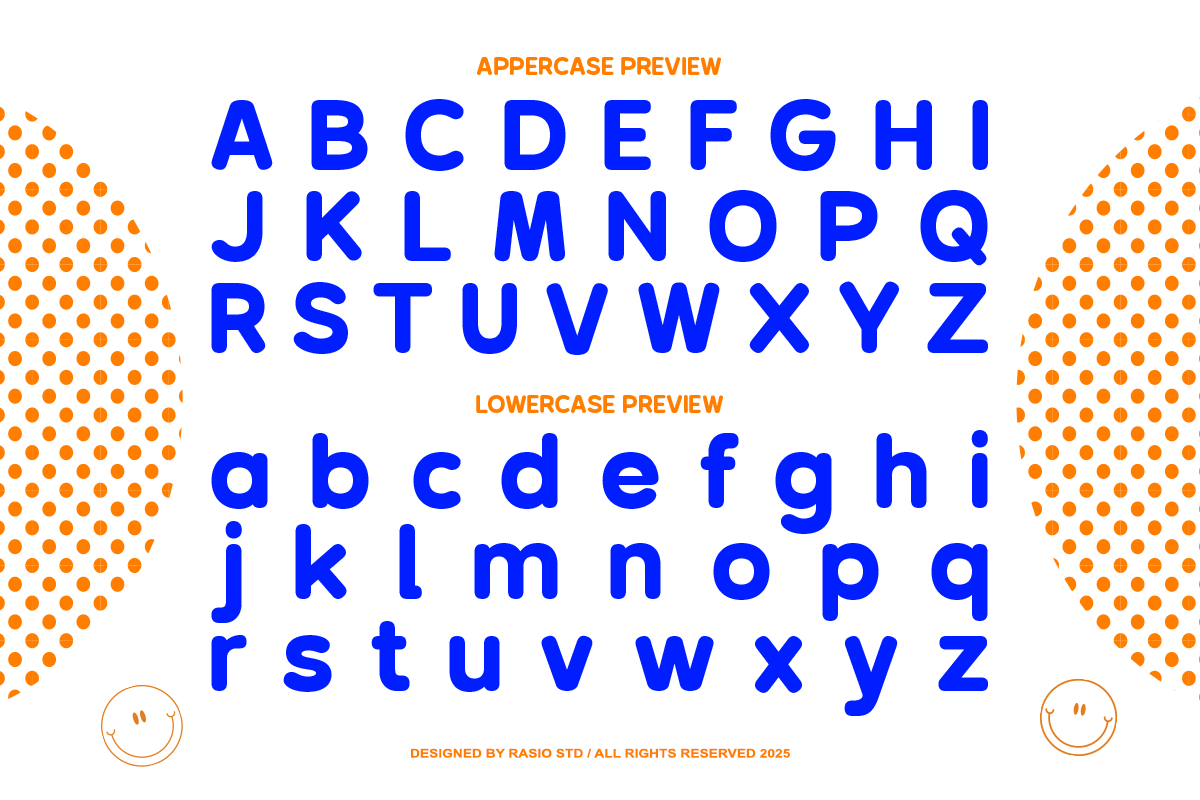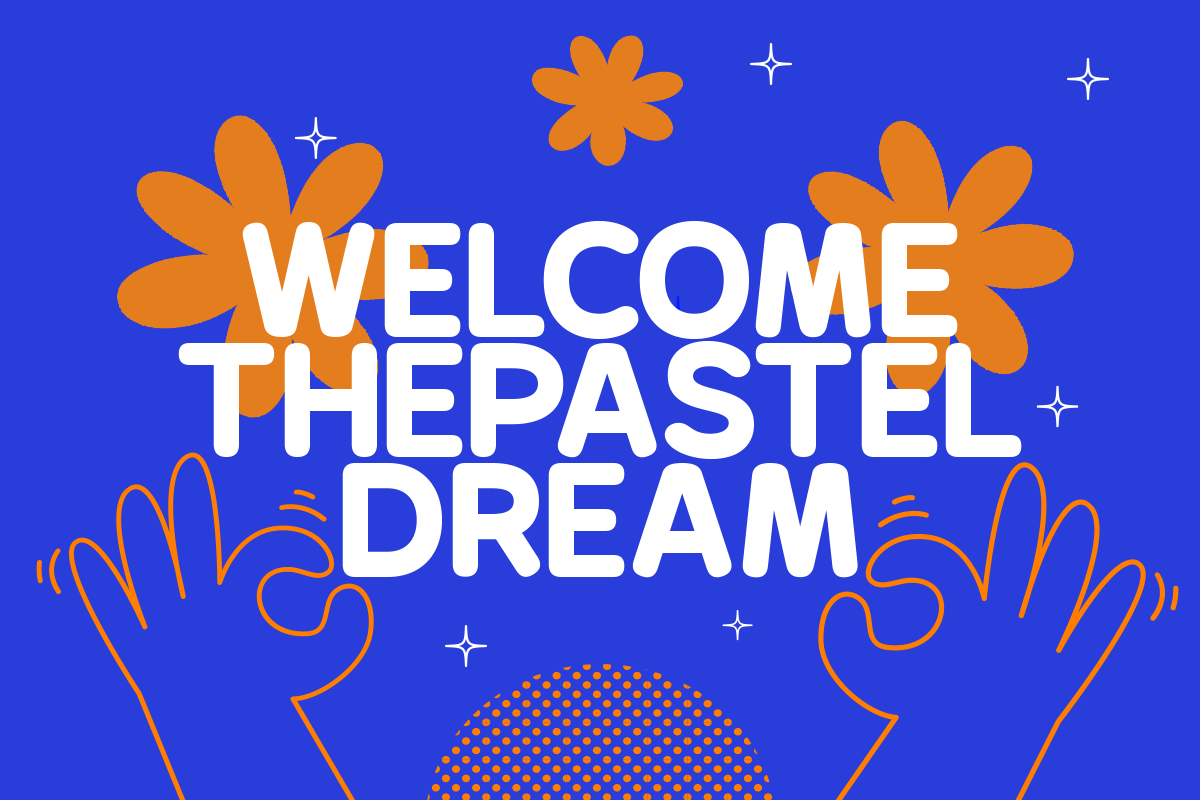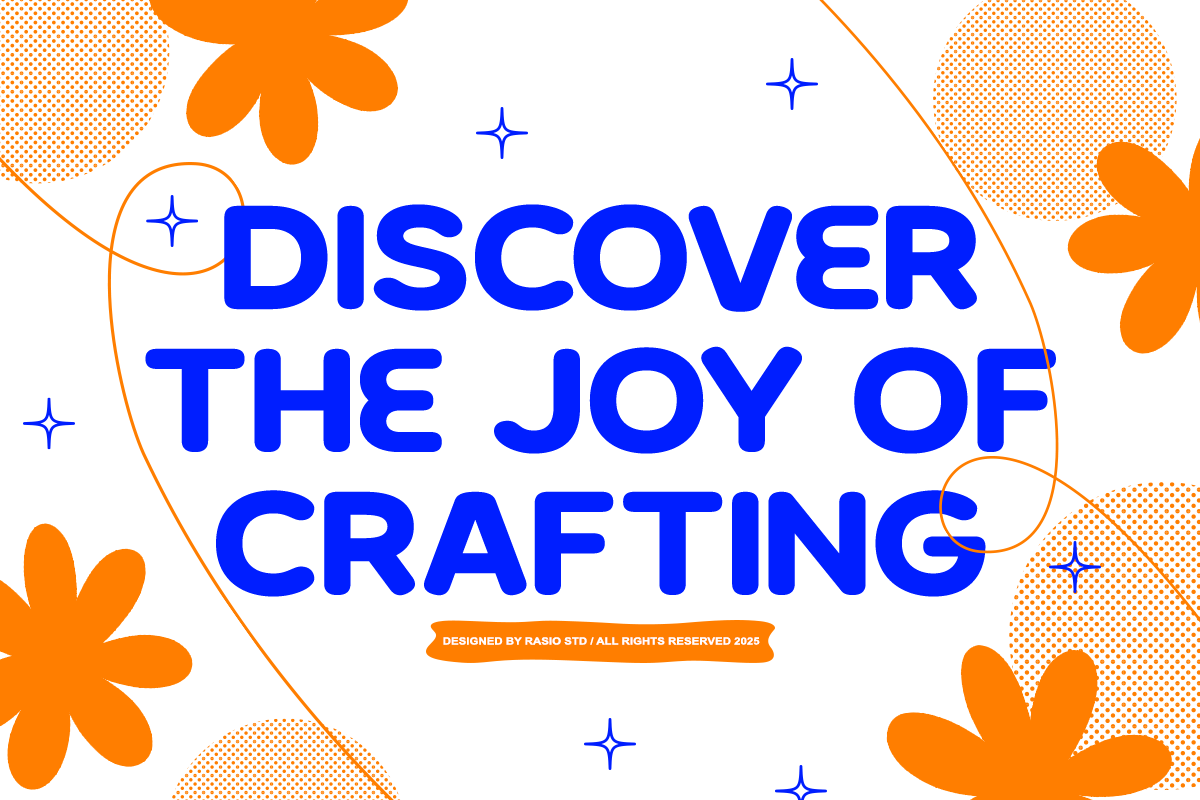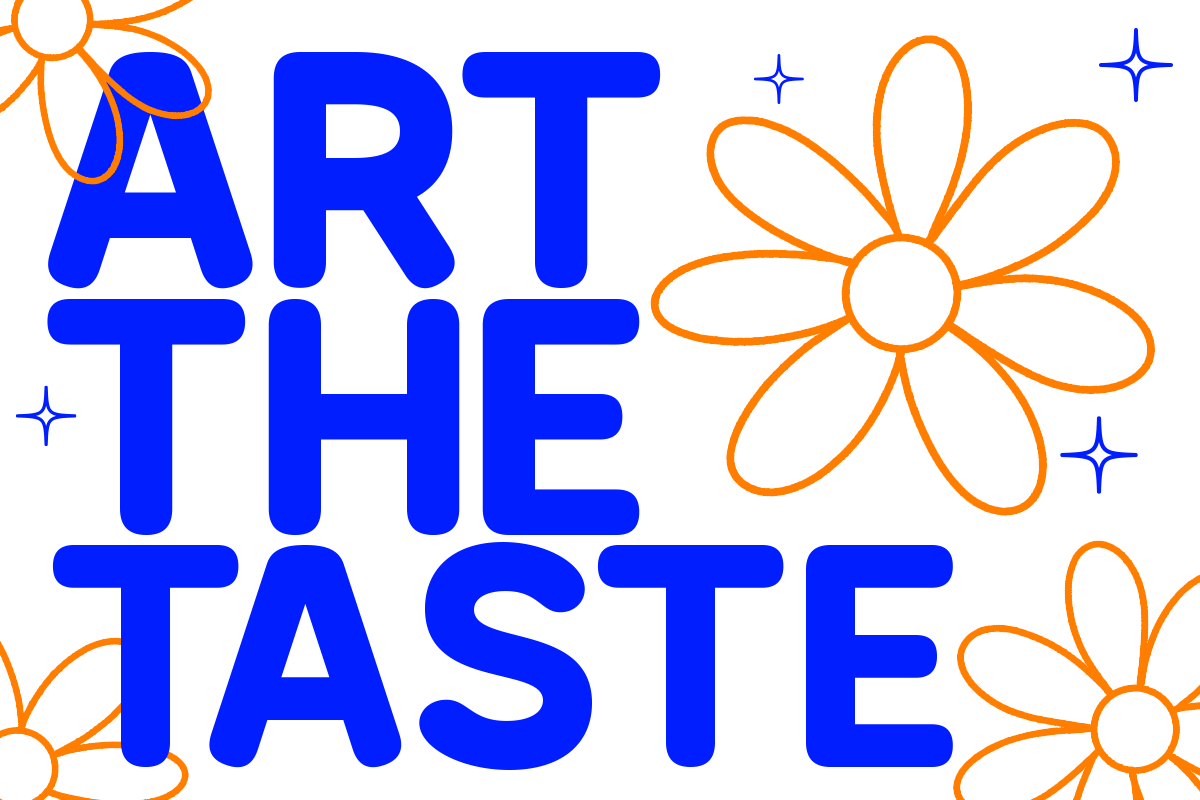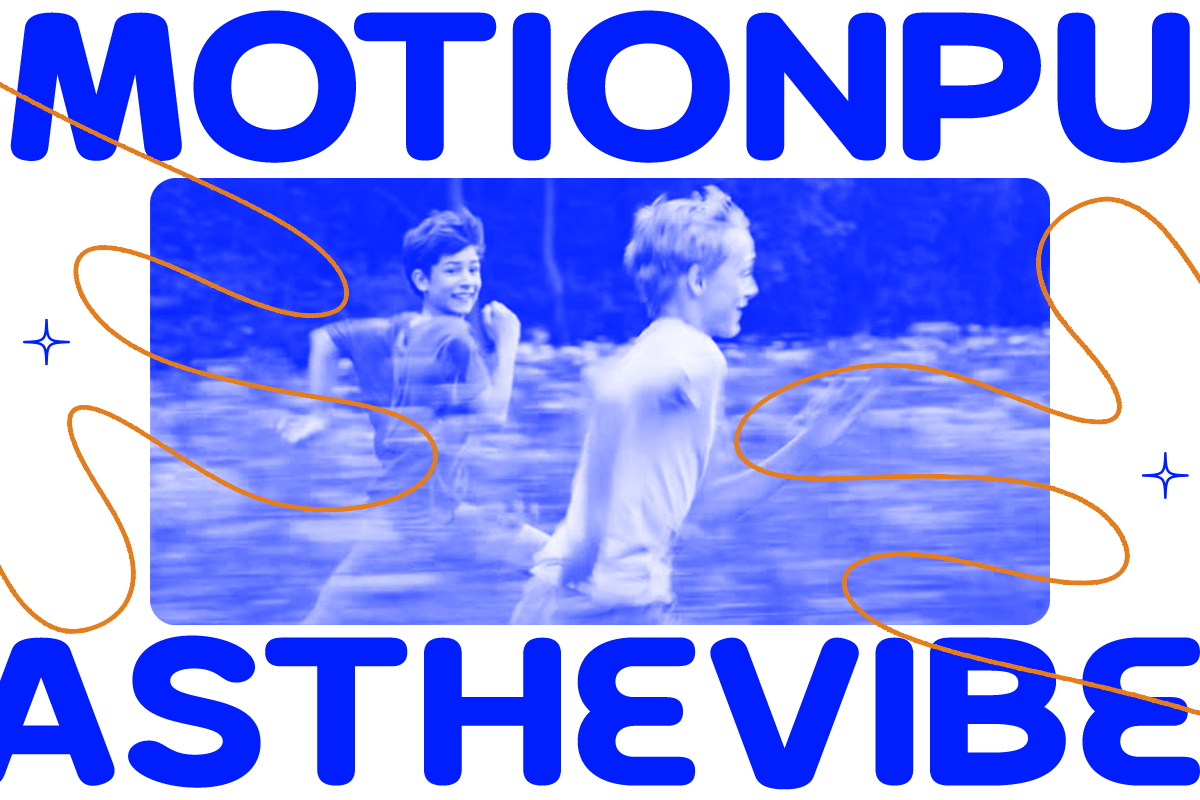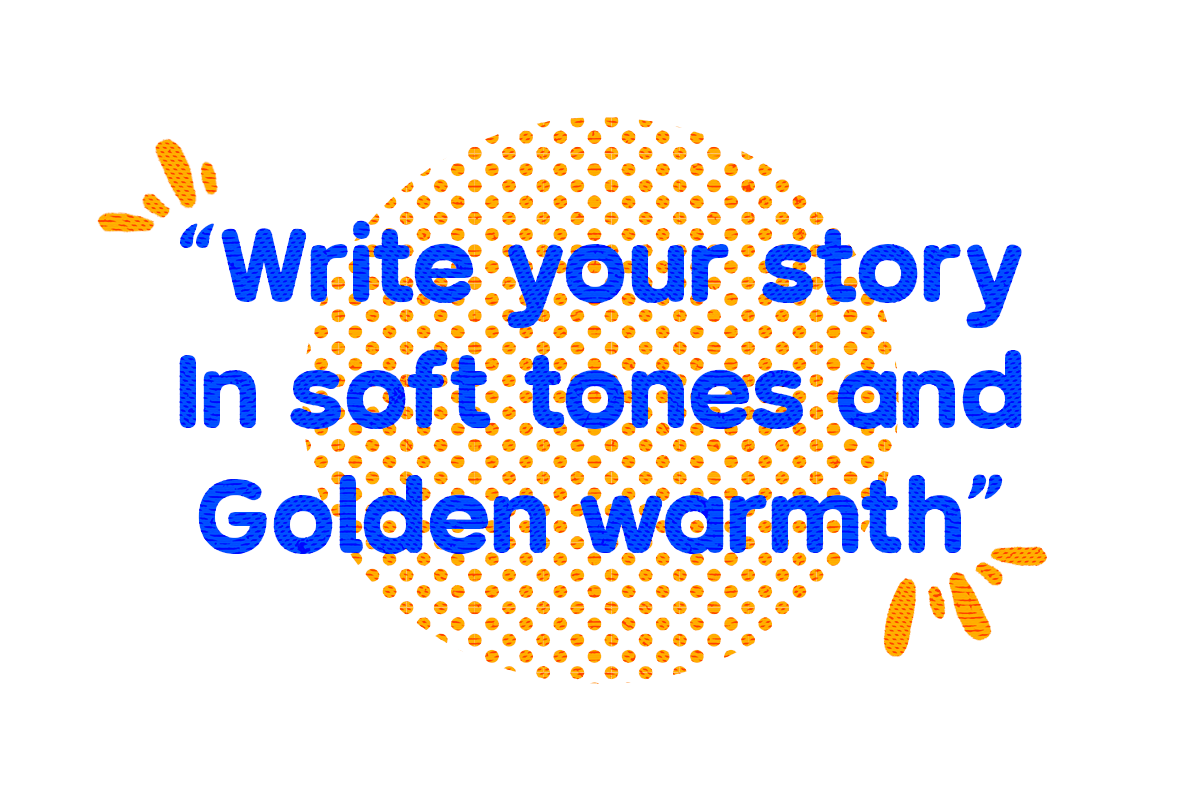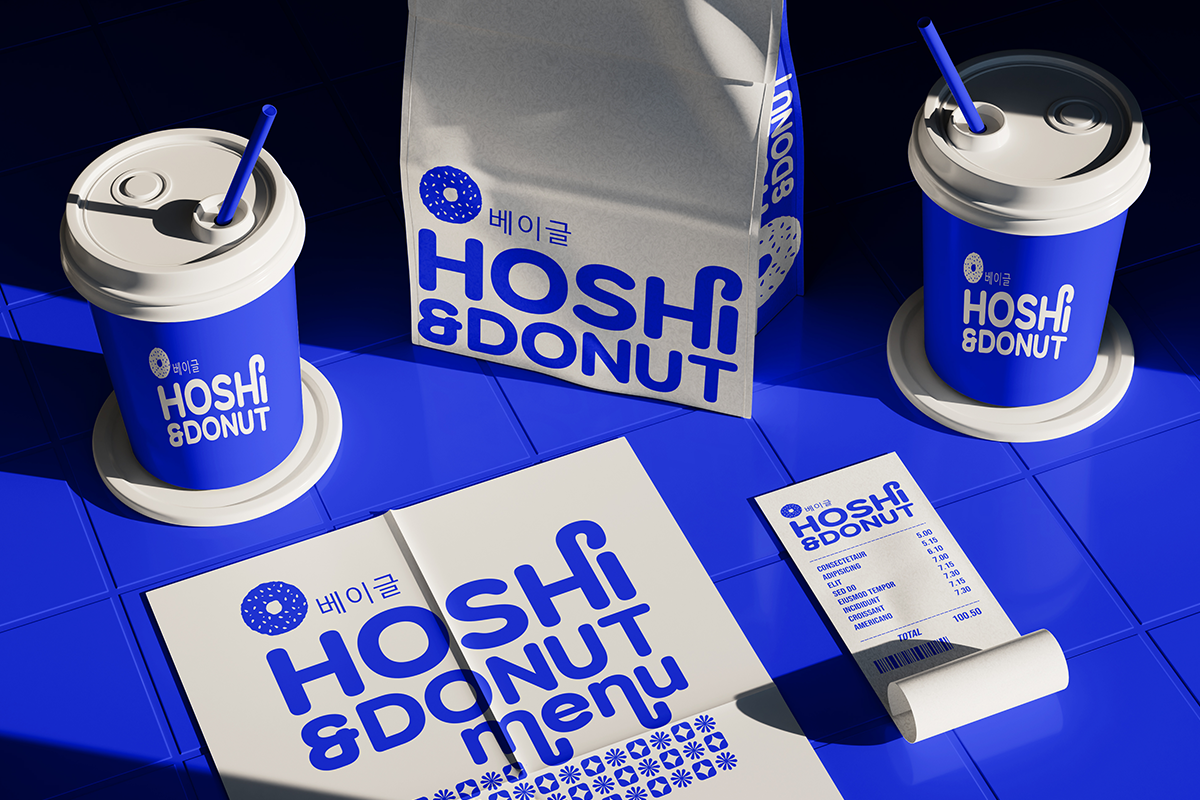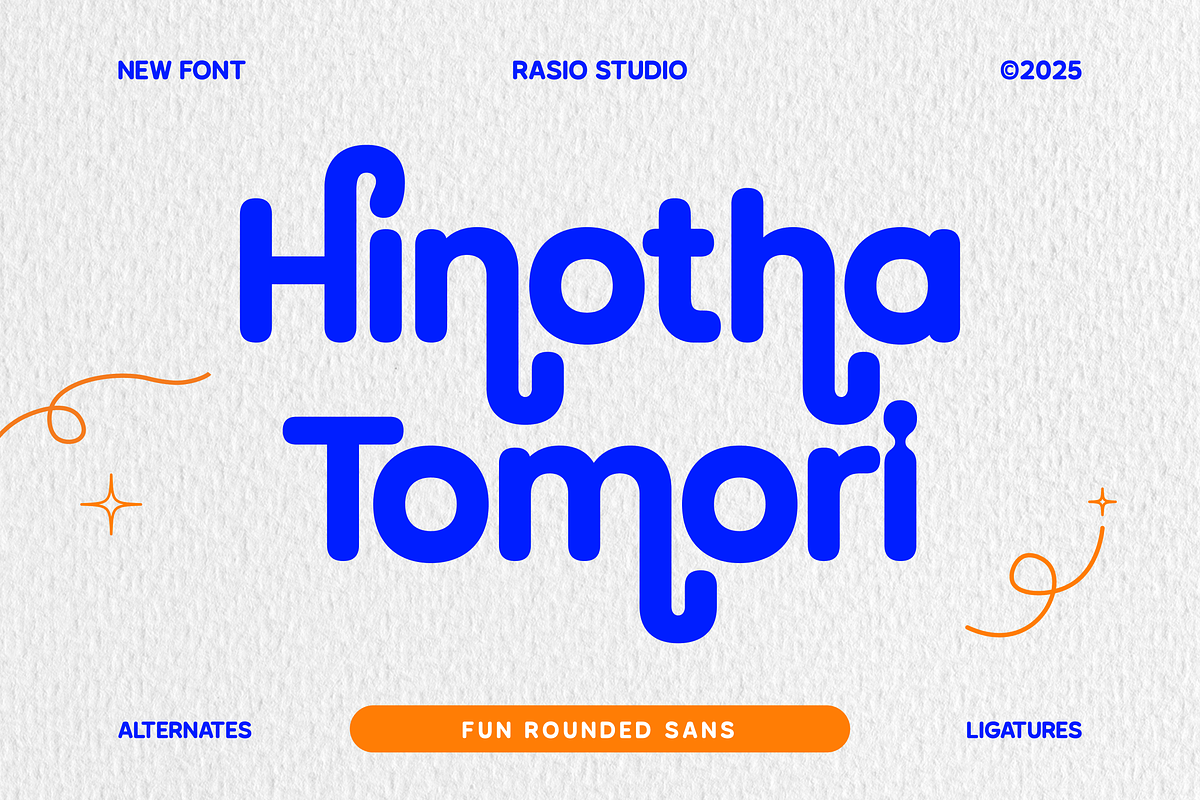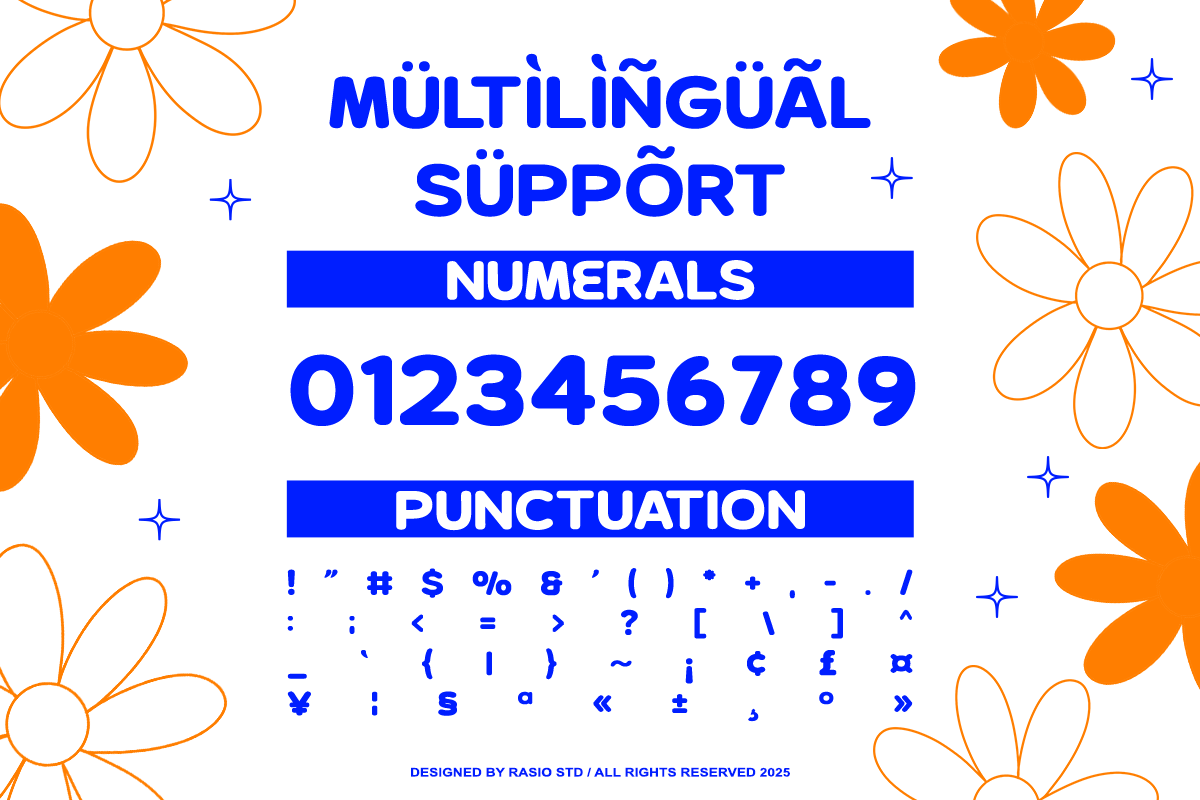
Hinotha Tomori Fun Rounded Sans Font
Hinotha Tomori is a fun rounded sans typeface with a playful and friendly character. Its soft curves, bold proportions, and quirky alternates make it perfect for cheerful branding, social media design, packaging, posters, and children’s products. The smooth rounded edges give it a modern yet approachable vibe, balancing readability and personality. Includes uppercase, lowercase, numbers, punctuation, alternates, ligatures, and multilingual support.
Relevance and Use Cases is perfect for kids’ branding, playful logos, food & snack packaging, social media quotes, lifestyle branding, cheerful posters, product labels, educational materials, and creative merchandise.
- Playful rounded sans serif with bold and soft geometric forms
- Chunky letterforms with smooth curves for a friendly visual tone
- Bouncy proportions and slightly irregular shapes for a lively character
- Clean and minimal stroke contrast for strong readability in display use
- Fun and approachable structure with modern retro influence
- Branding projects with a fun and friendly personality
- Logo designs that need a bold and approachable look
- Children-themed designs, toys, and playful product branding
- Packaging design with colorful and eye-catching appeal
- Social media graphics and promotional visuals with a lively tone
- Posters, headlines, and display typography with strong character
Make your message pop with a bold, fun typeface full of charm with Hinotha Tomori